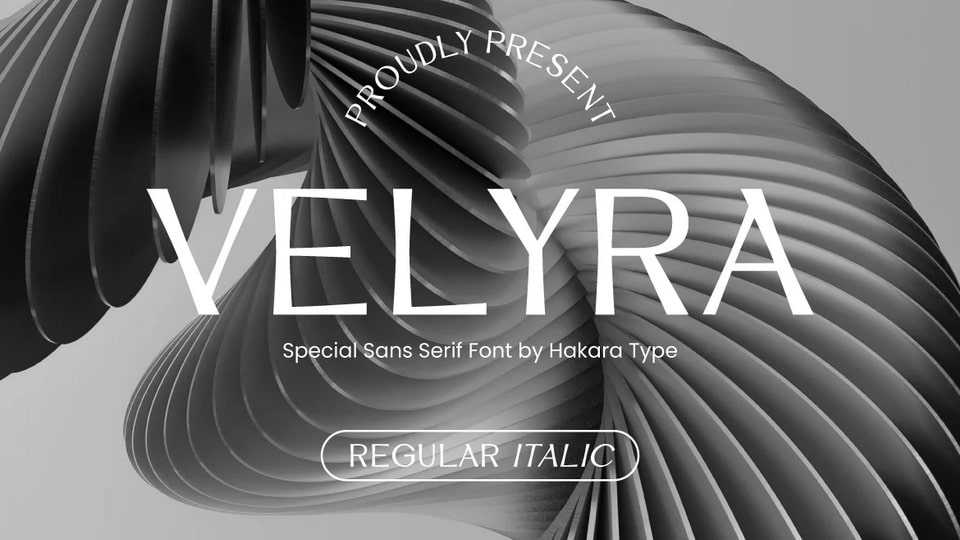
Download Velyra font, a modern typeface meticulously designed to embody elegance, luxury, and an eye-catching allure. The clean lines and balanced proportions contribute to the font’s modern appeal, ensuring a polished and sophisticated look in every aspect.
Designer: Hakara Type